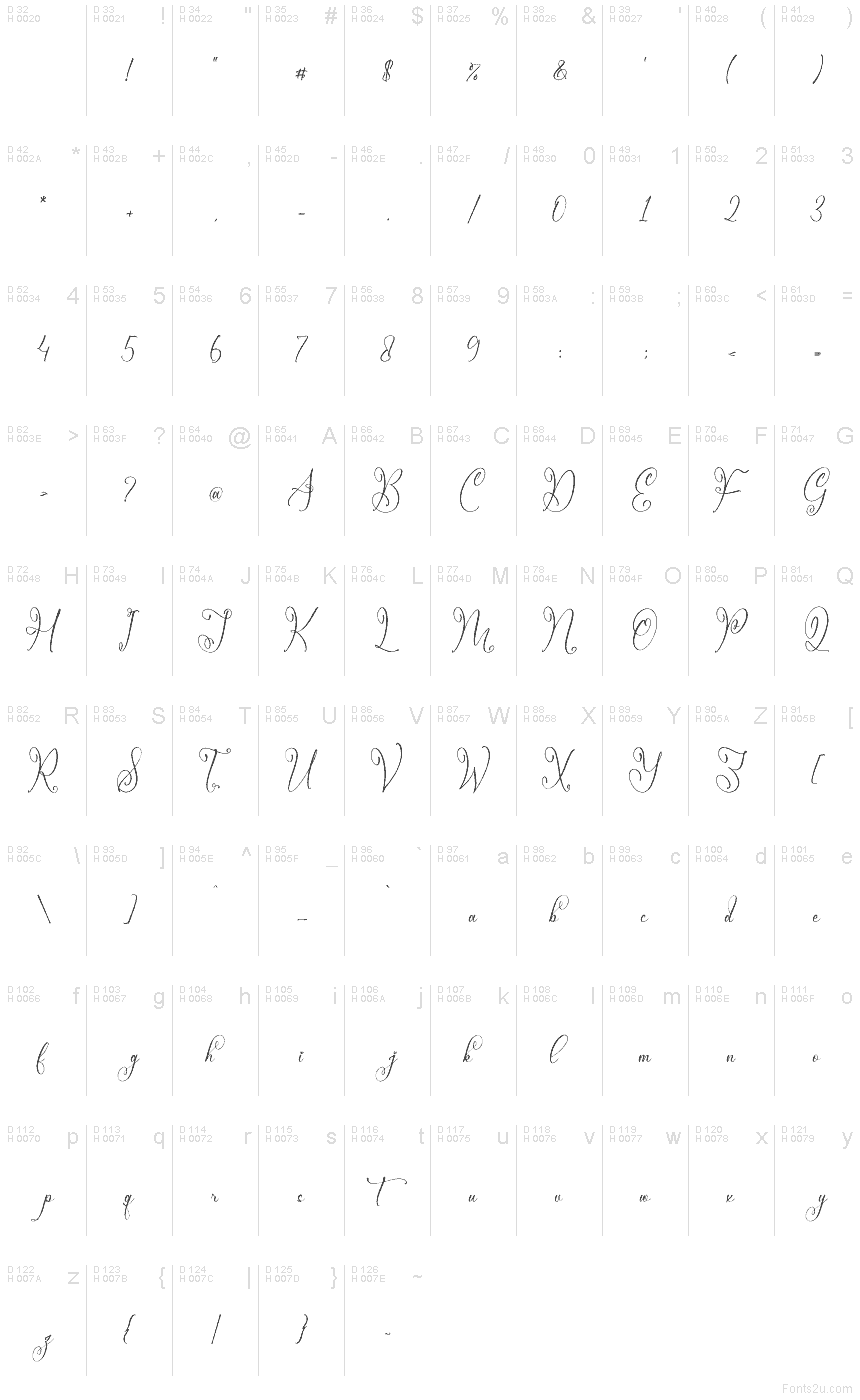
Mendikari
Mendikari font by Storytype Studio is a free light calligraphic font. It stands out with airy, ribbon-like strokes and playful heart-tipped details that sparkle at small nodes, giving each word a wink of personality. The letters glide with graceful loops and long, elastic ascenders, creating a romantic rhythm that feels hand-inked yet polished.
Using Mendikari, headlines sing on wedding invitations, save‑the‑dates, boutique logos, cosmetics packaging, quote prints, social banners, and event signage. Generous spacing keeps the swashes readable, while the gentle contrast adds shimmer without fuss. This free font pairs beautifully with a clean geometric sans for body text; try setting Mendikari big and letting the hearts and curls do the talking.